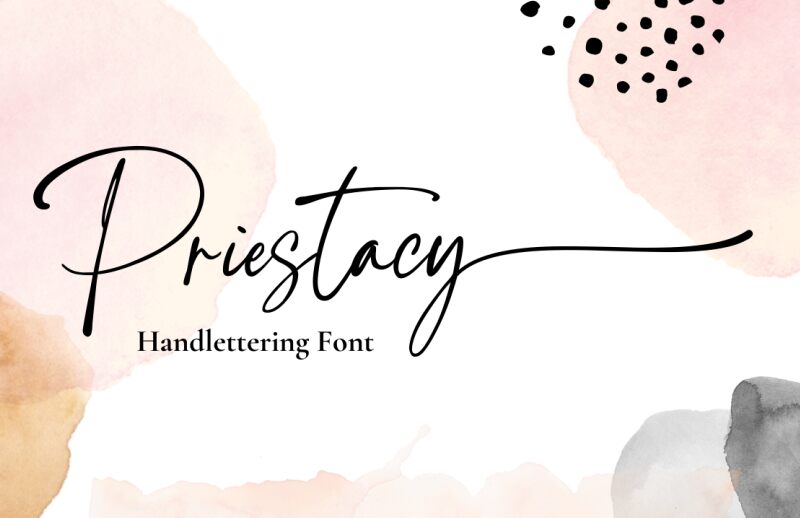
Priestacy
Priestacy, the exquisite extra-light font designed by sronstudio, will add a touch of elegance to any project. Its delicate, beautiful handwritten style is perfect for invitations, greeting cards, and stationery. The gracefully flowing curves of Priestacy lend themselves well to wedding invitations and other formal events. However, this font's versatility doesn't end there - it can also be used for branding and logos with a more romantic or feminine feel. The airy extra-light weight is ideal for headings and titles that require a delicate touch. Elevate your designs with the alluring charm of Priestacy!